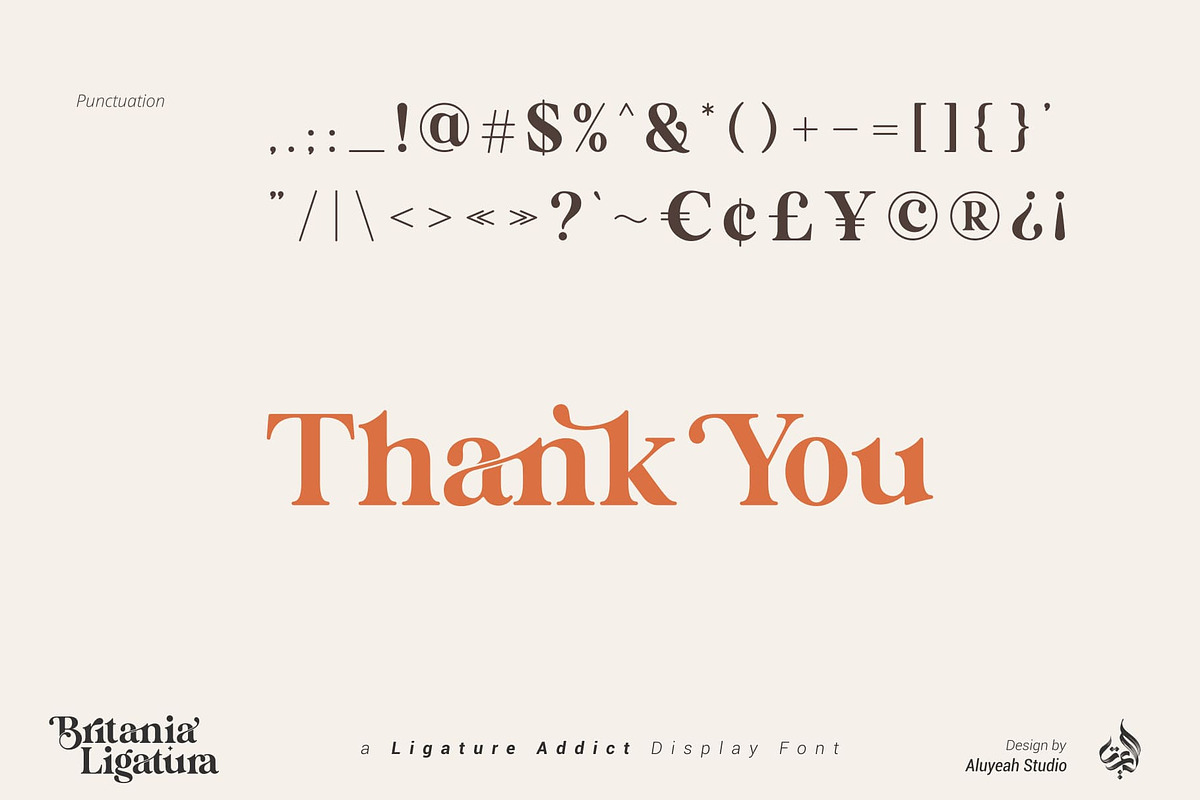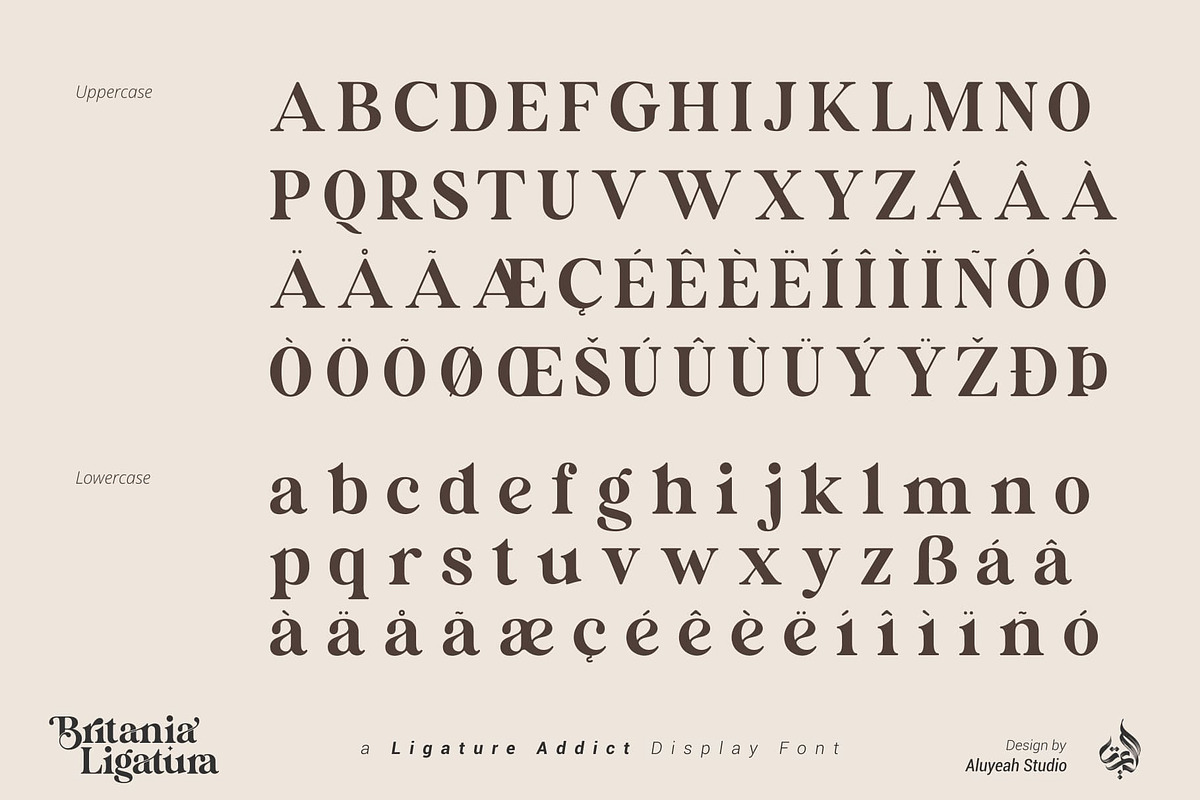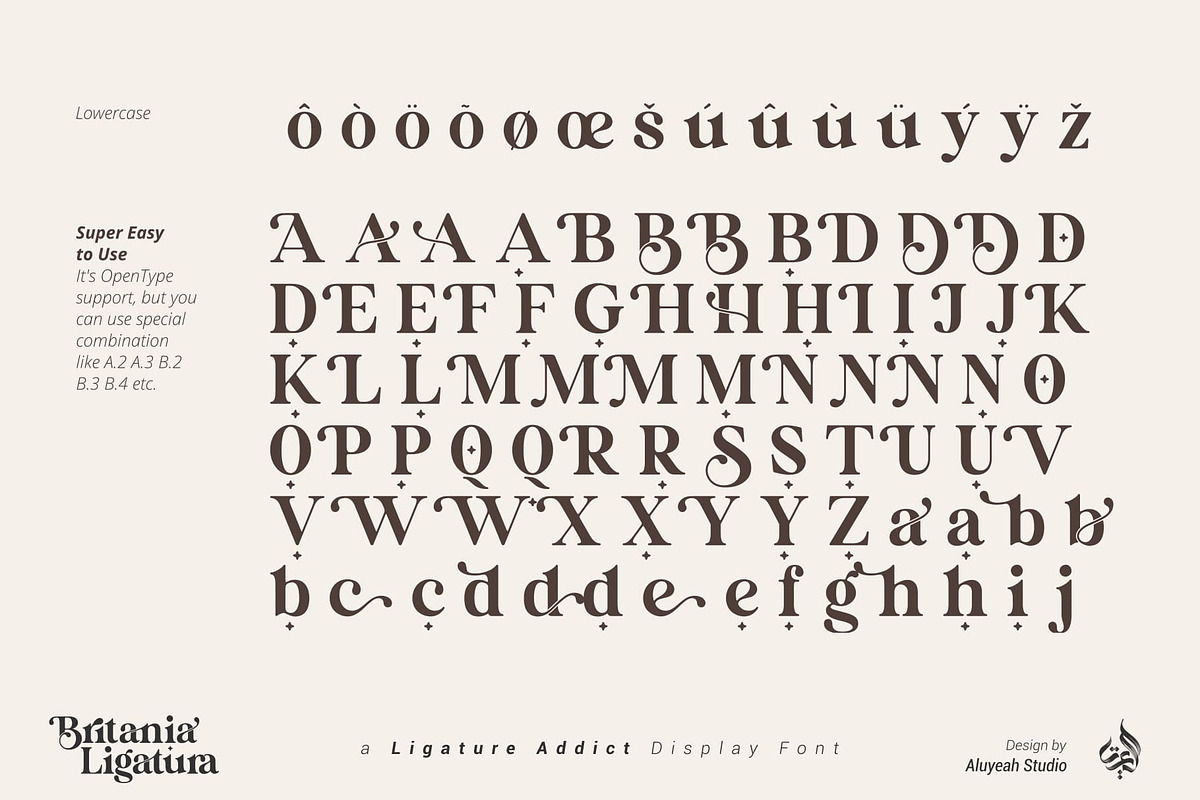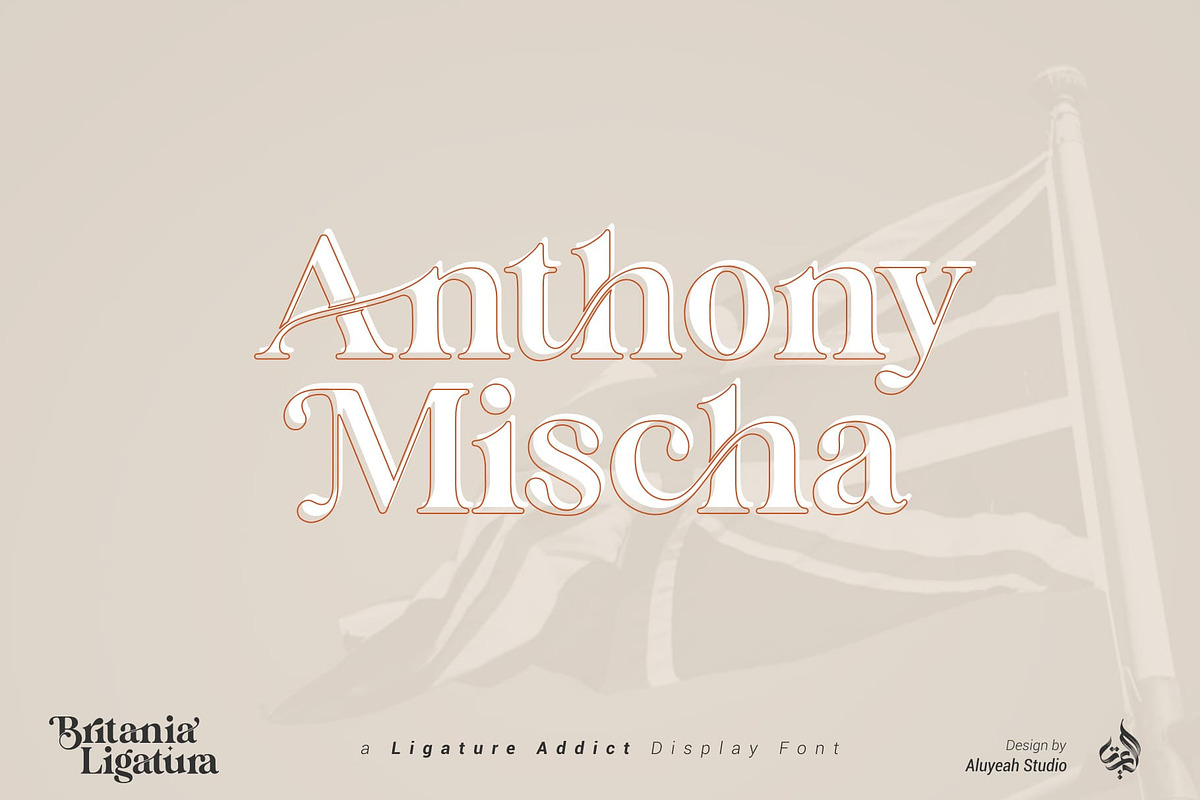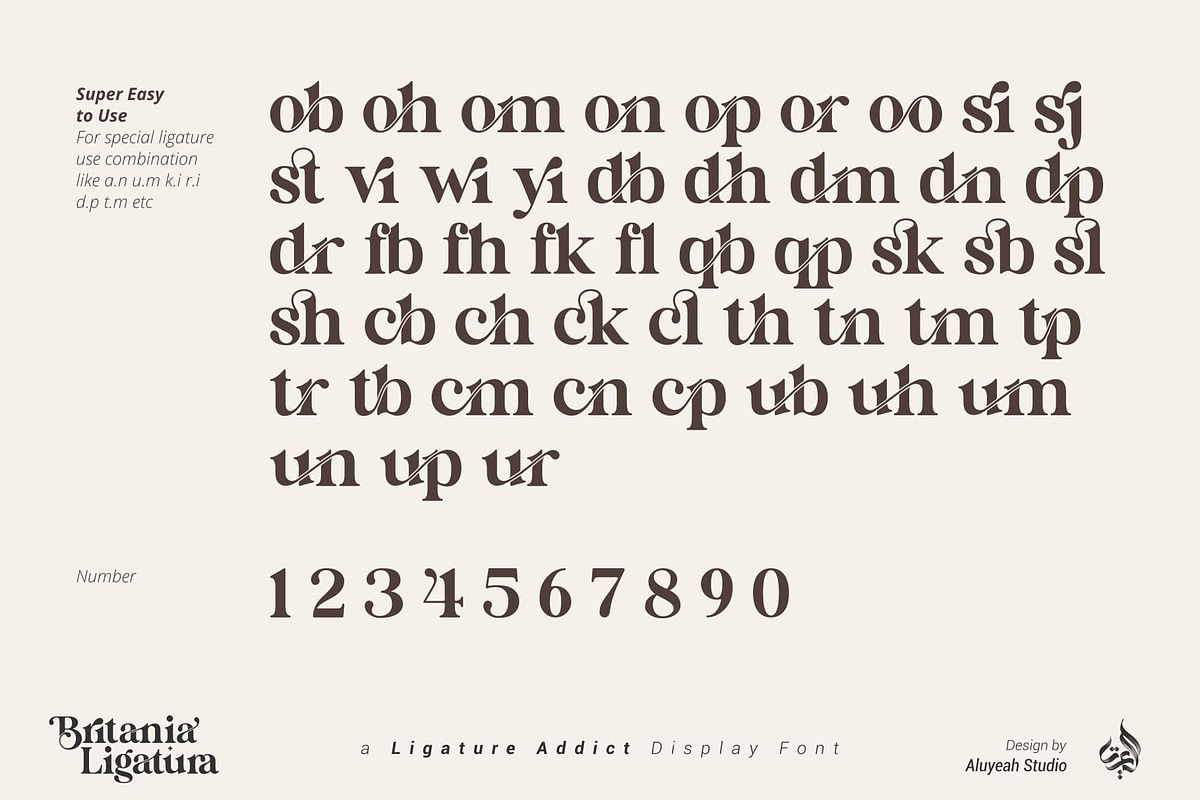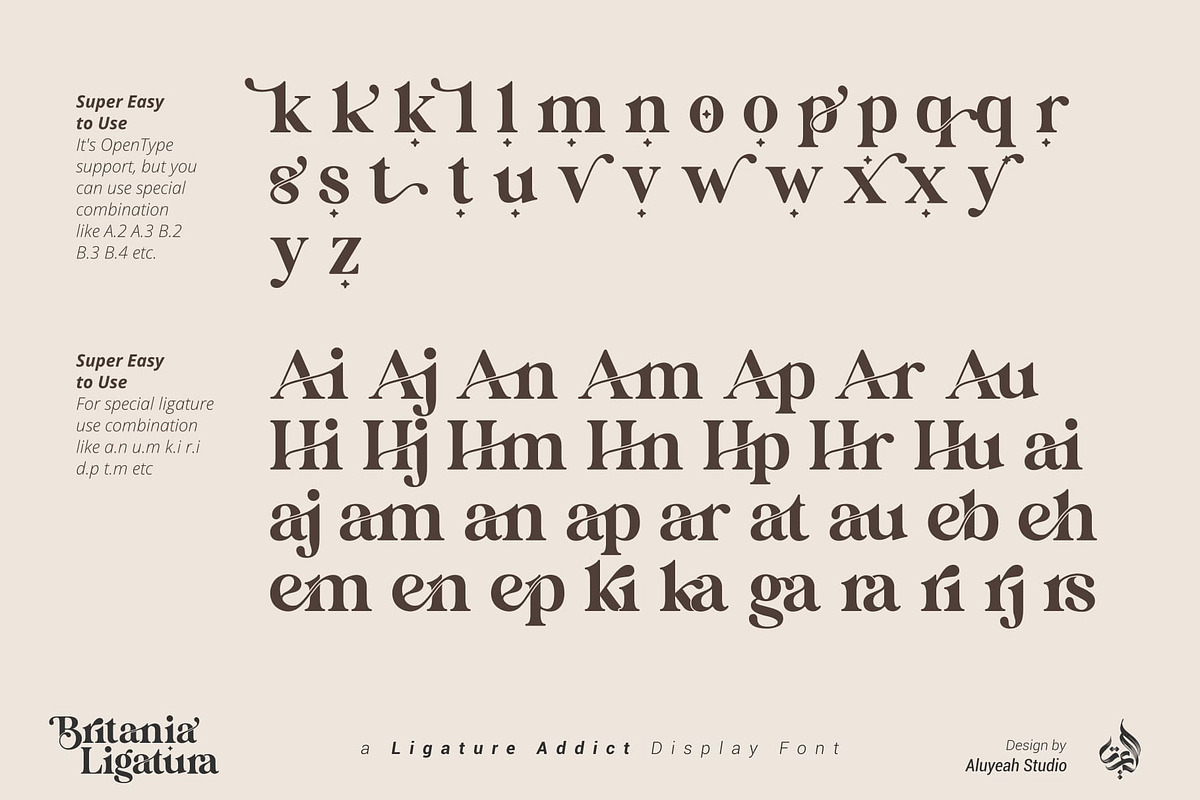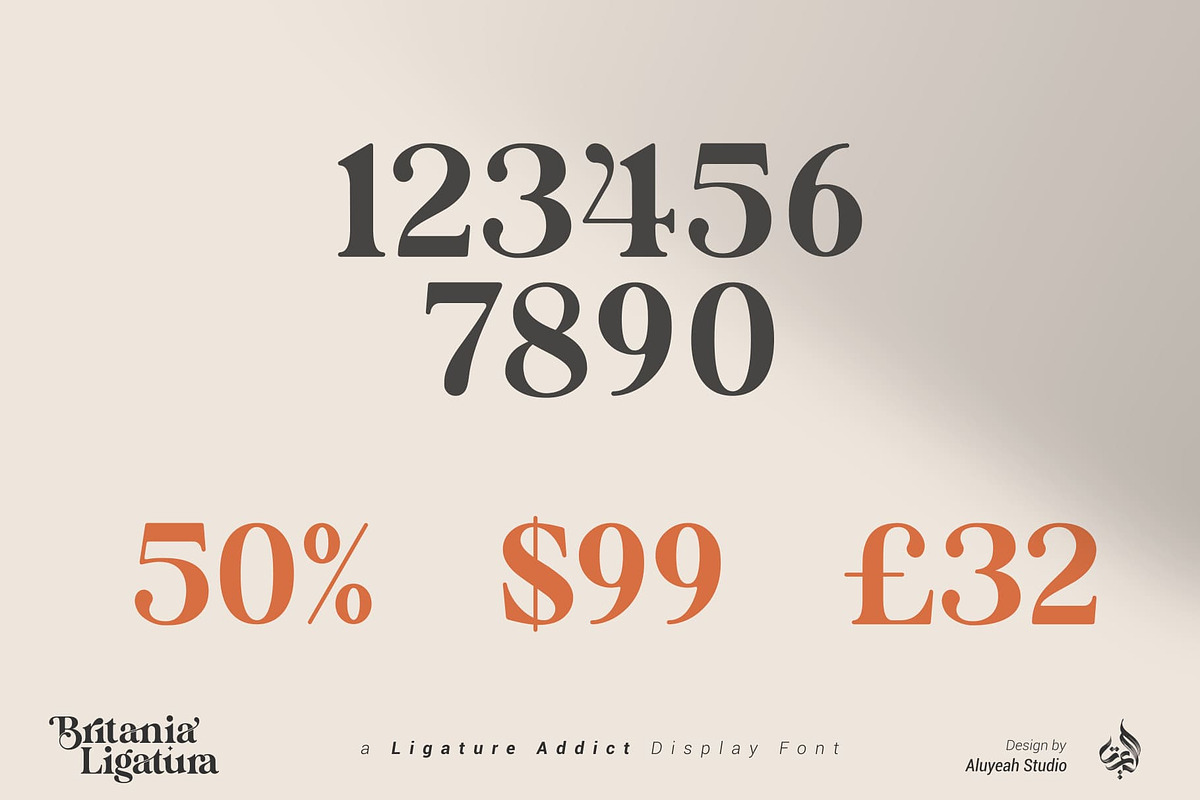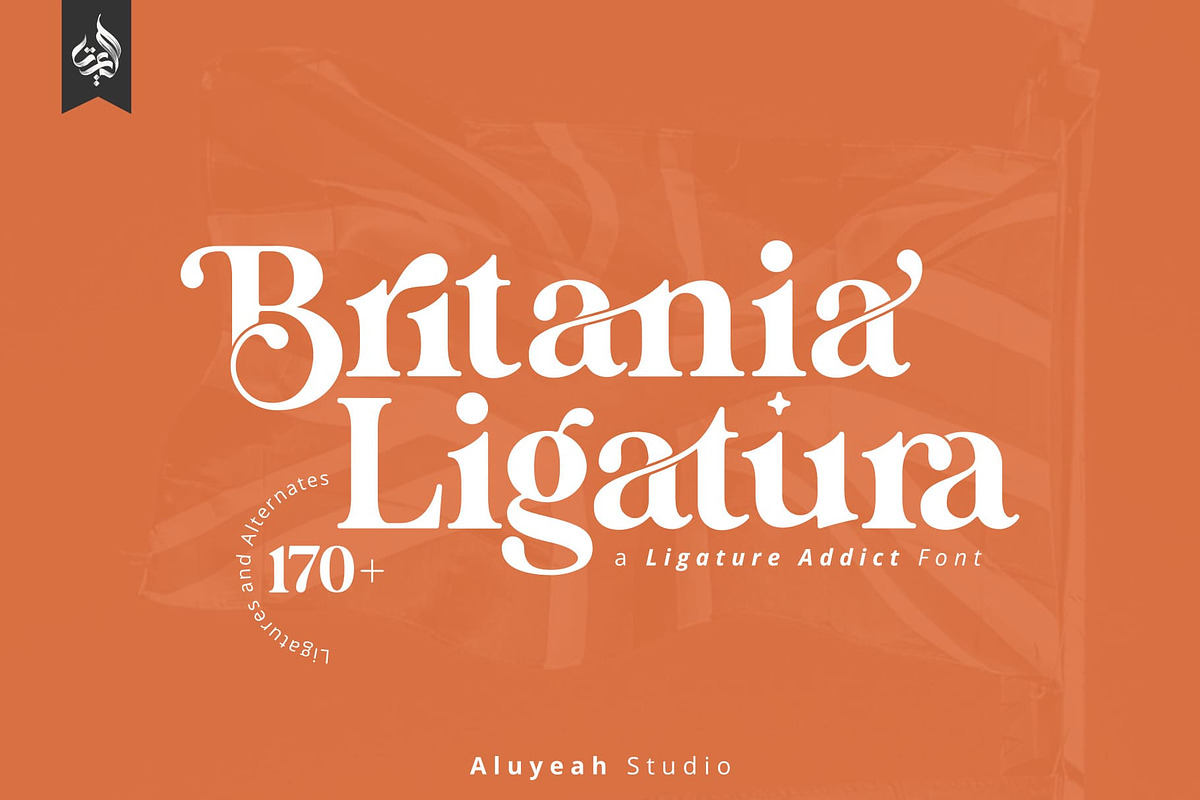
Britania Ligatura
Britania Ligatura, a Ligature Addict Display Font
Coming to you with 170+ stunning alternate and ligature to create a perfectly fashionable, beautiful, fancy, and elegant design.
- OpenType support
- Multilingual support (15 languages)
- Super Easy to Use alternates – It’s OpenType support but you can easily call alternates character using special combination like A.2 B.2 a.2 b.2 etc. so you don’t need special software. For special ligature you can use combination like a.n a.m u.b d.h etc
To get results like the preview just type B.4r.ita.ni.2a.2 Liga.tur.a